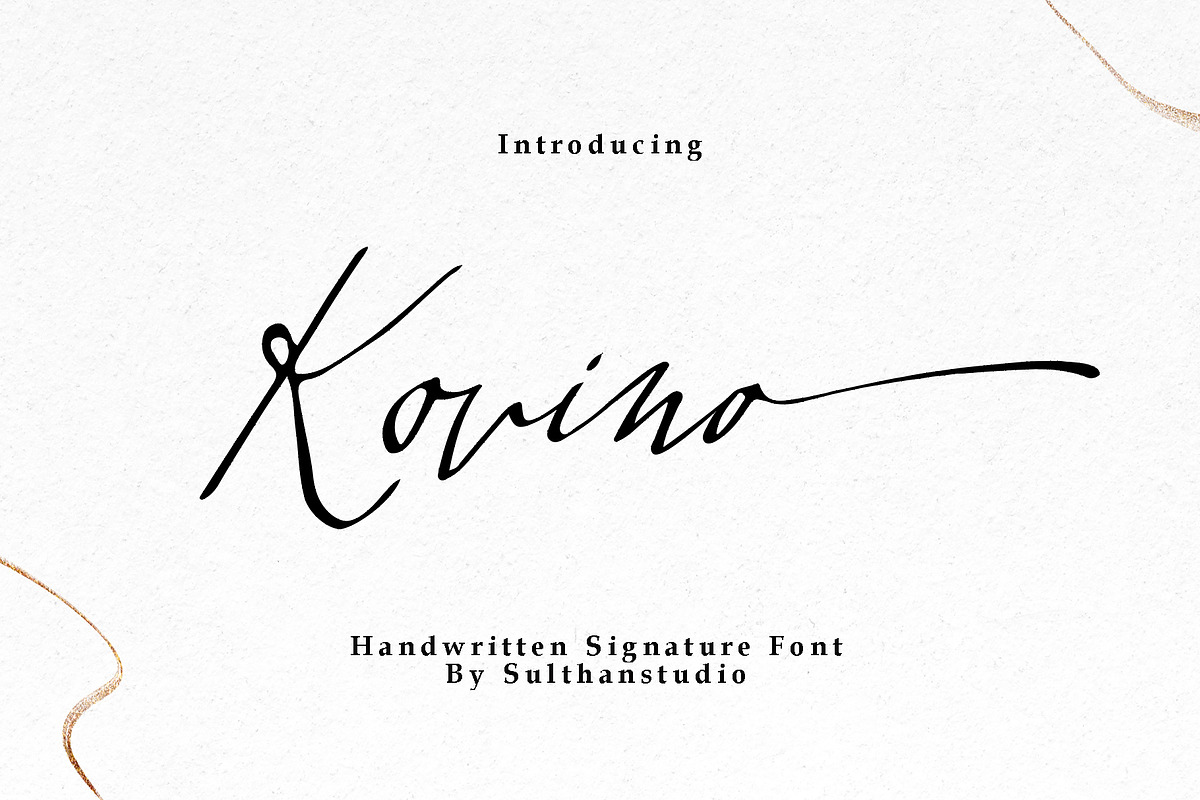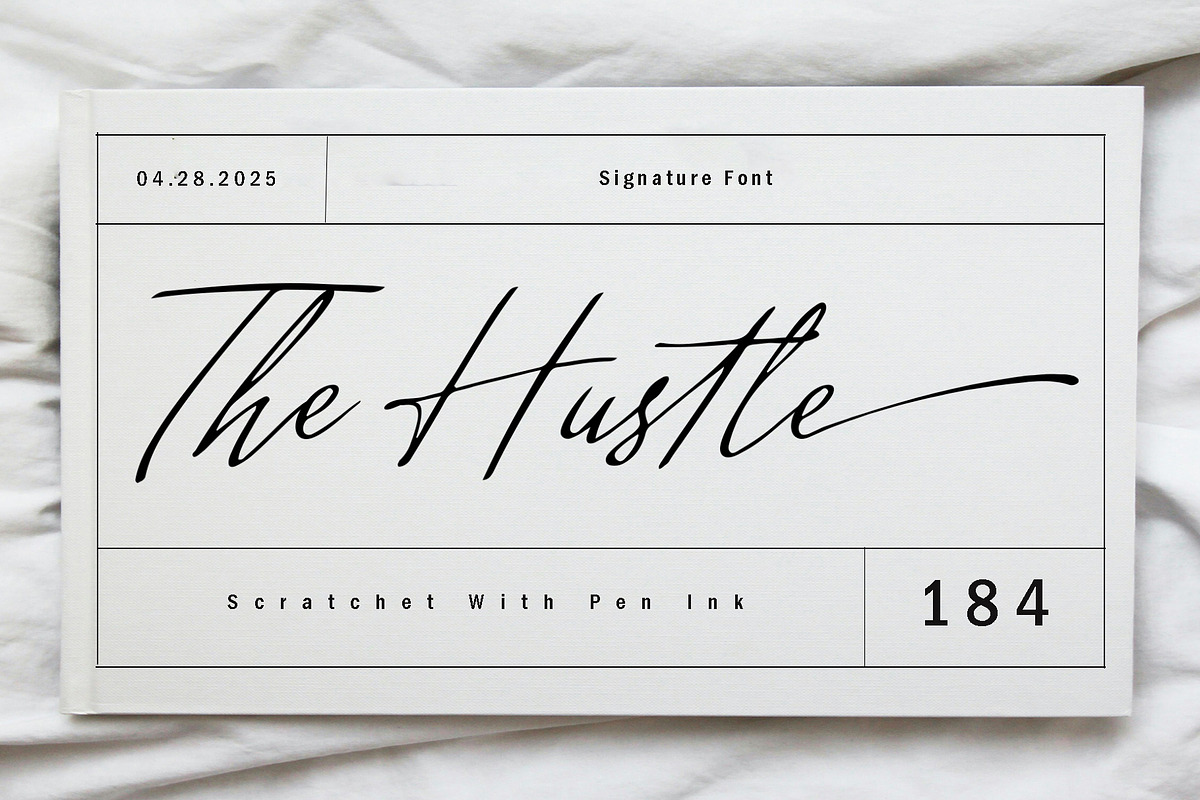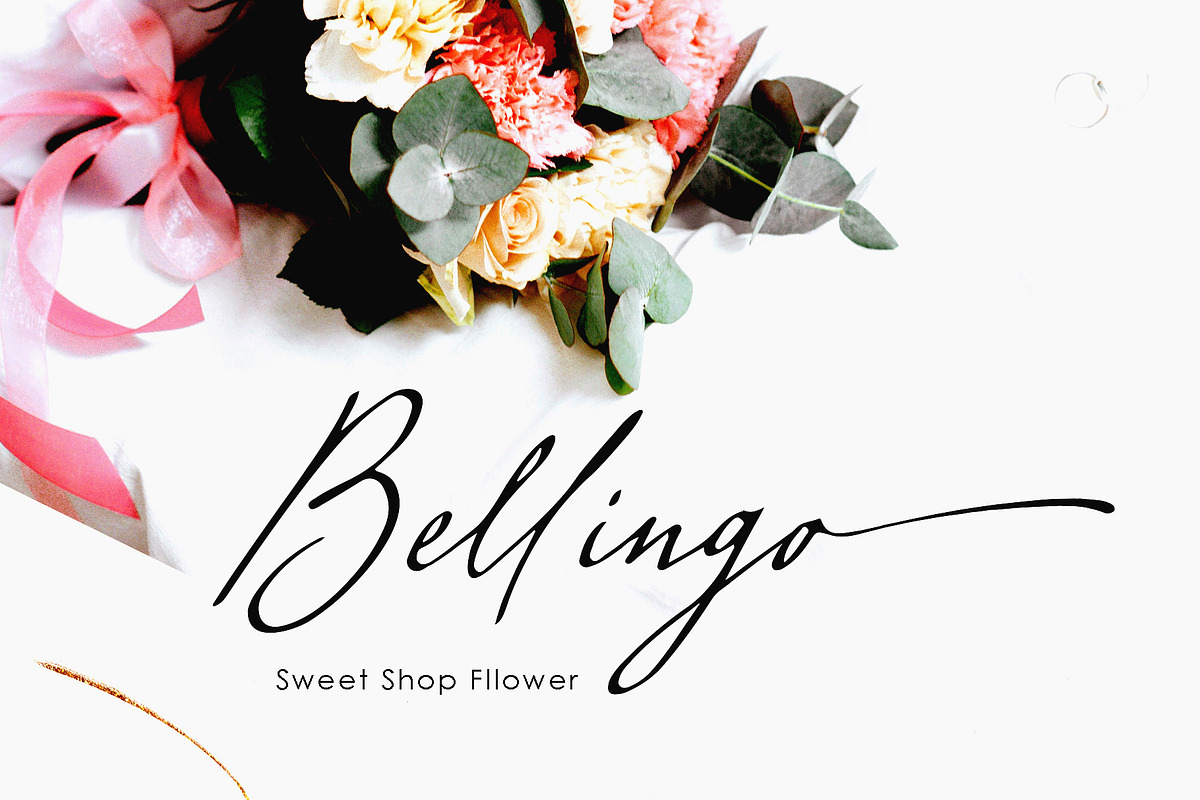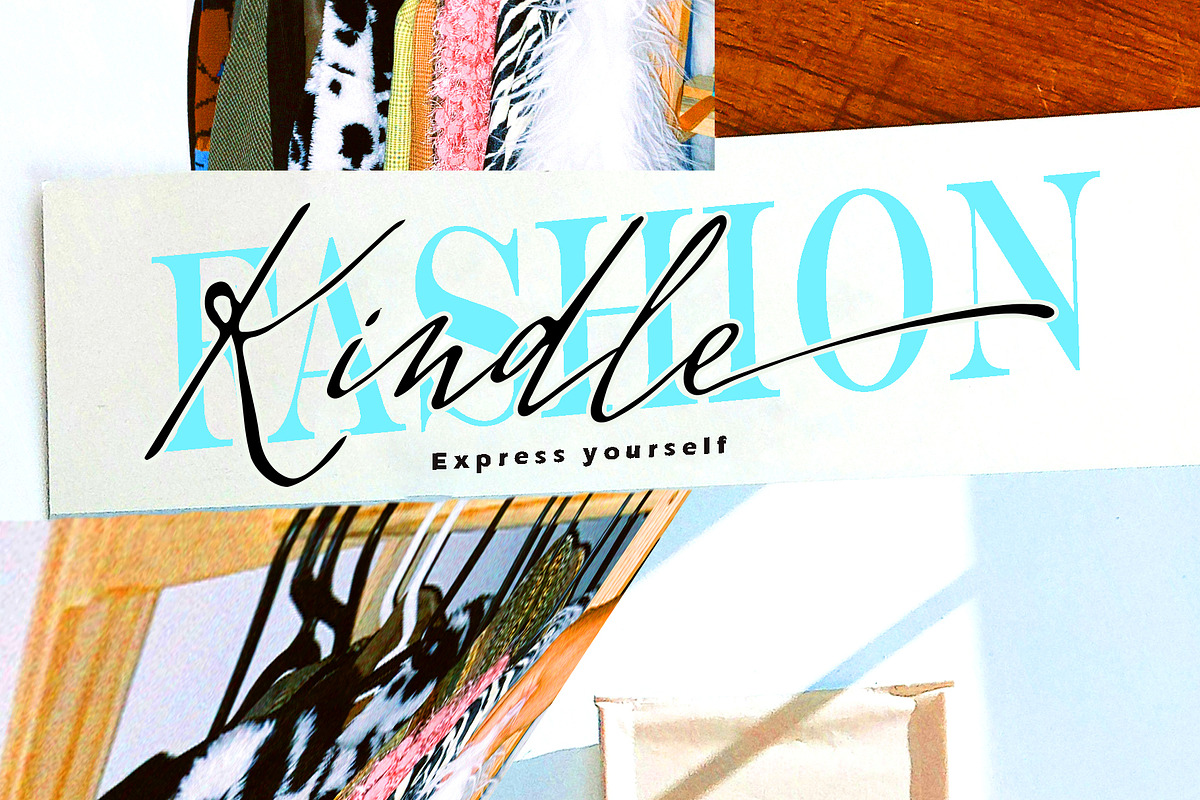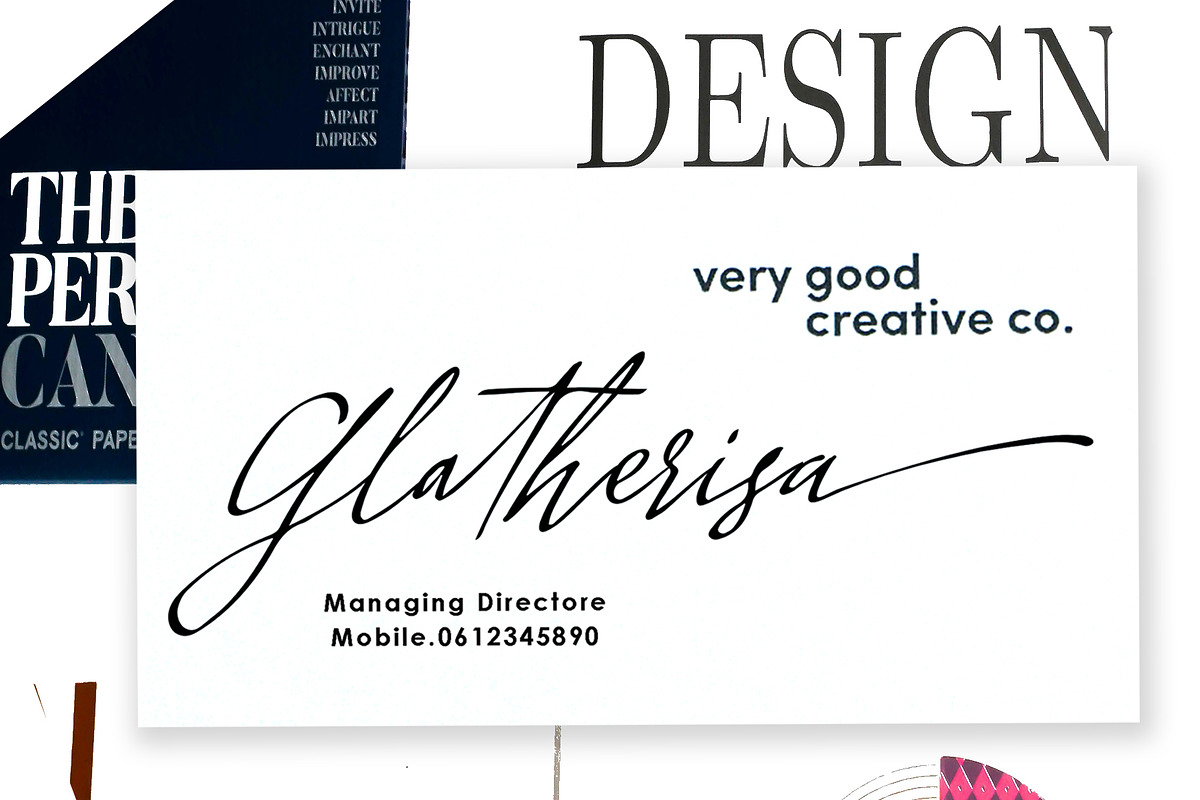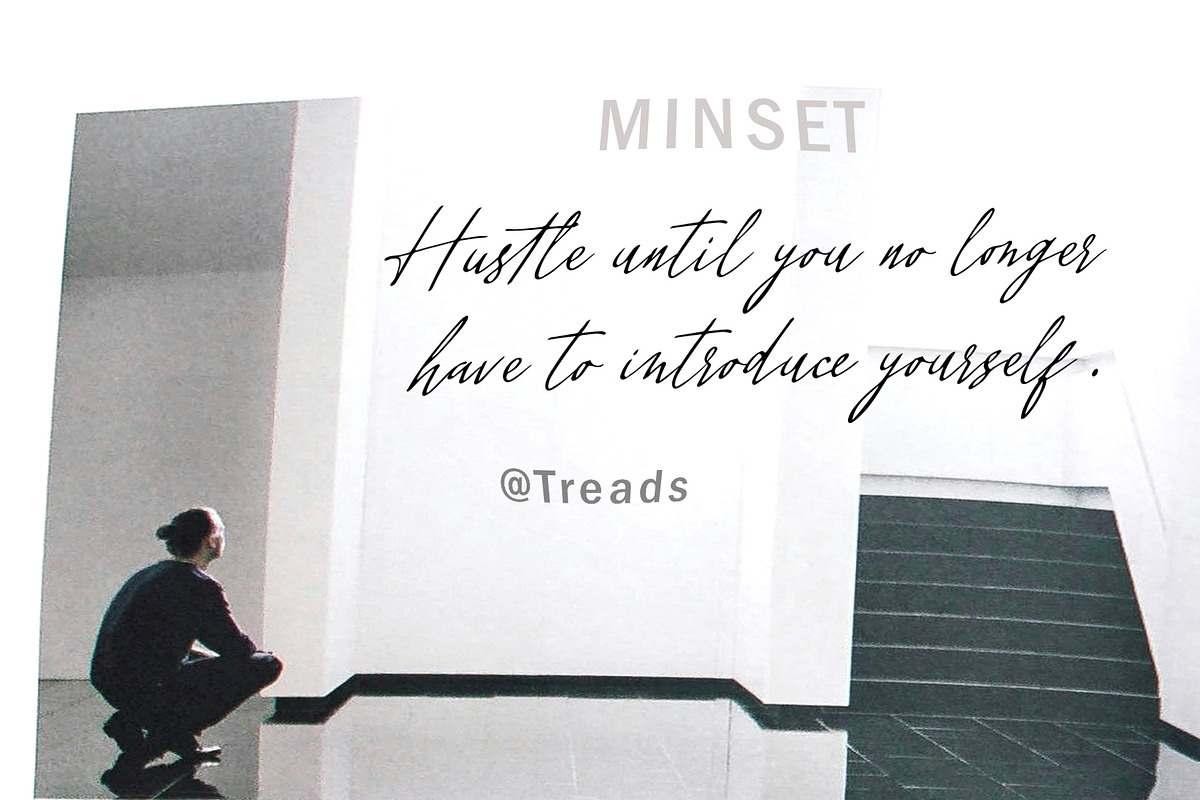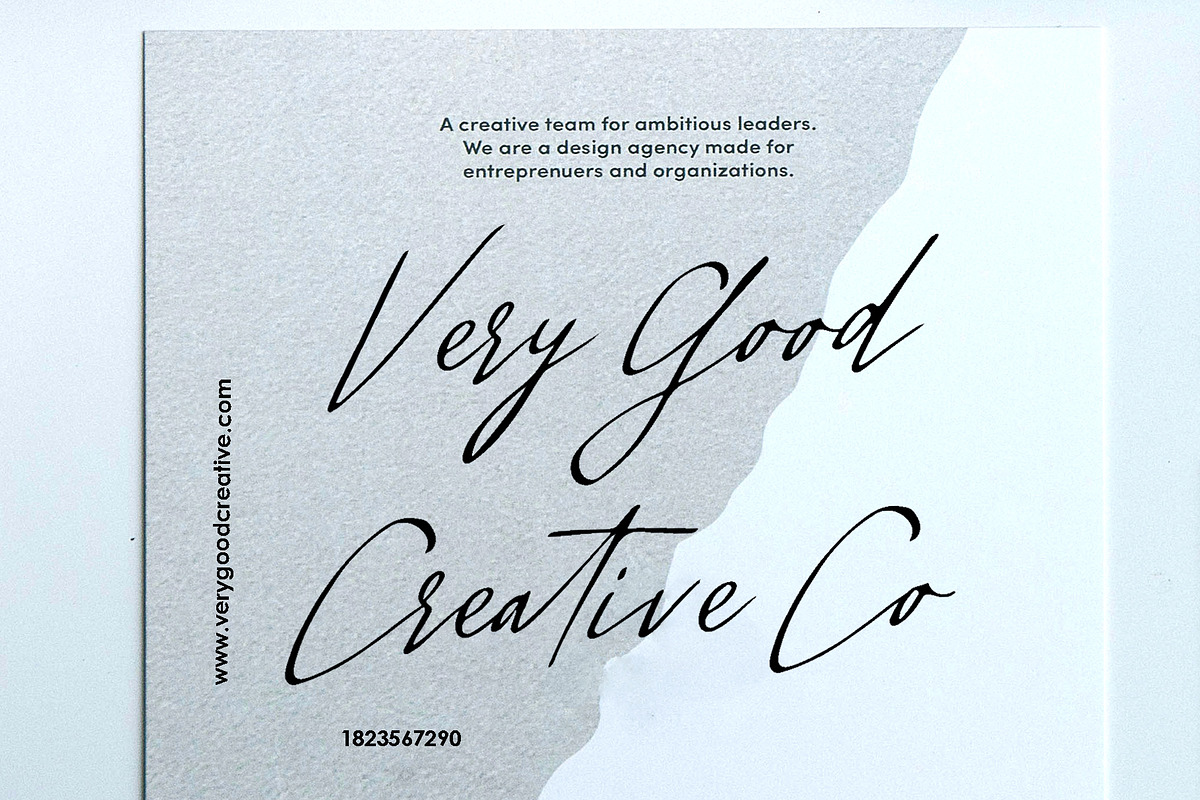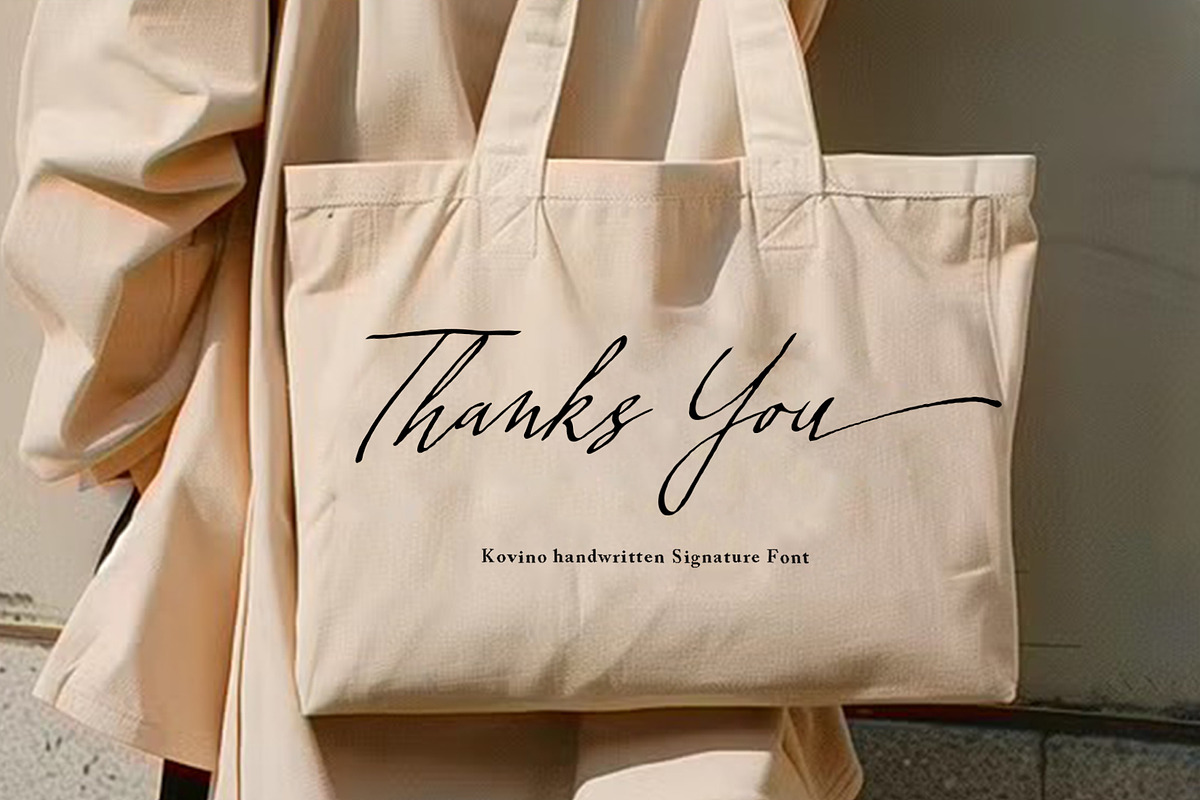
Kovino Signature
Immerse yourself in the organic splendor of the Natural Ink Signature font. It's an artistic embodiment of handwritten signature beauty, personifying originality at its finest. Its flexible form is easily adaptable, making it the perfect tool for infusing a personal essence into greeting cards, boosting your social media persona, or lending an exclusive flair to product titles. Vibrantly elevate your creative projects with the eclectic allure and raw refinement of the Natural Ink Signature font.